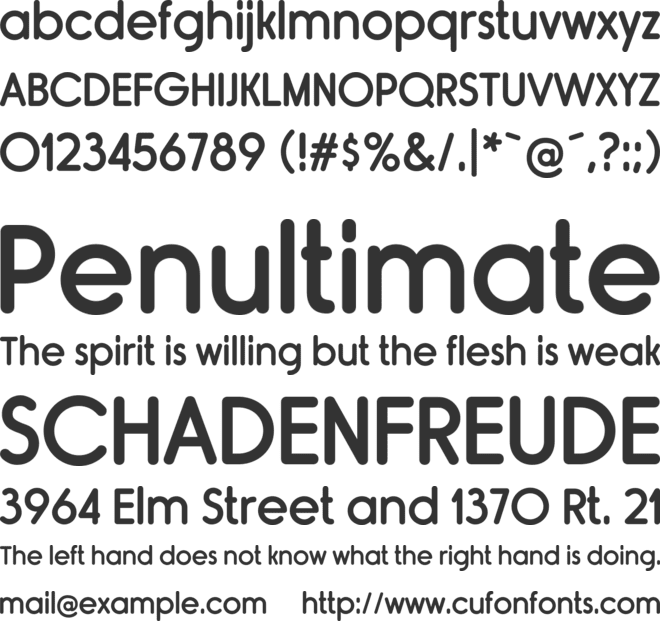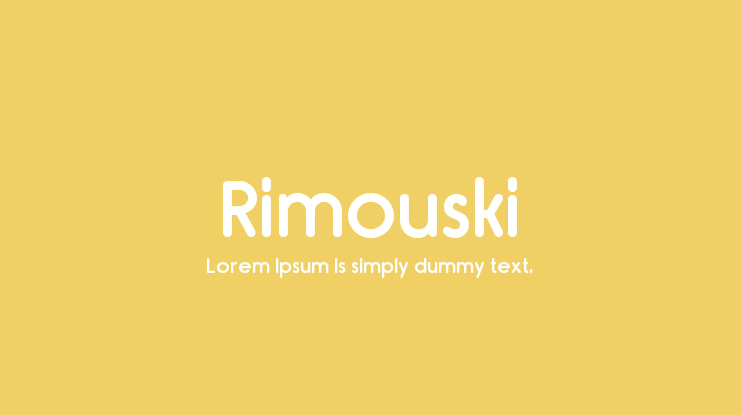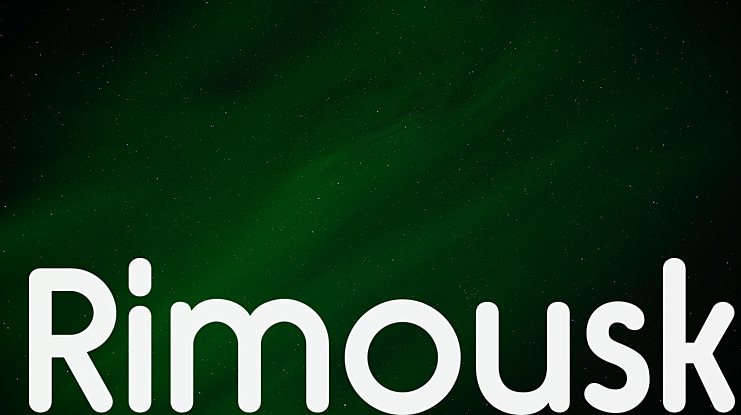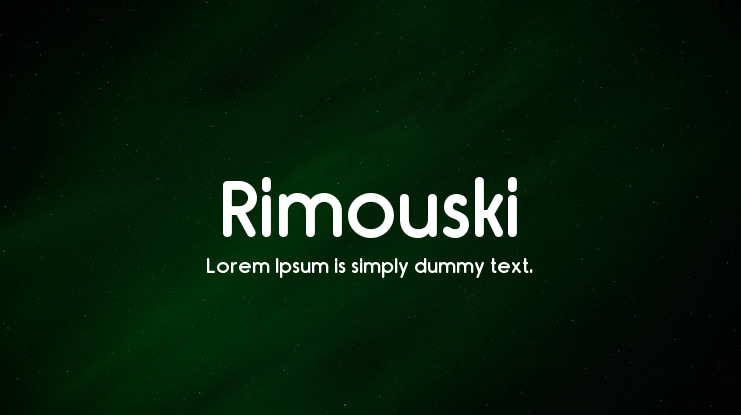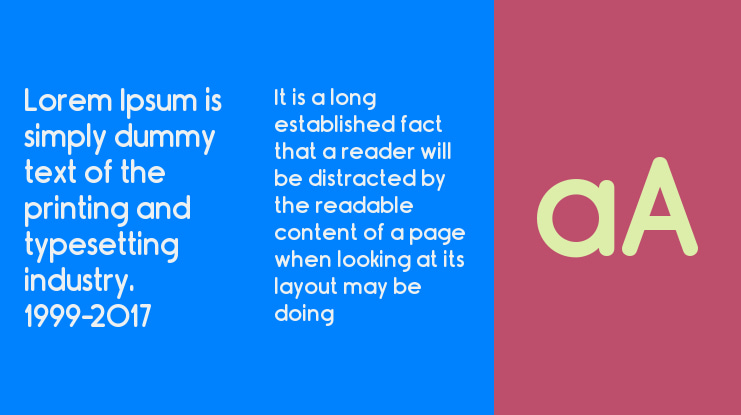
Rimouski Font
Ray Larabie
Rimouski is a rounded geometric font family. Use the OpenType "stylistic alternates" feature to unleash a slew of strangely slanted characters.